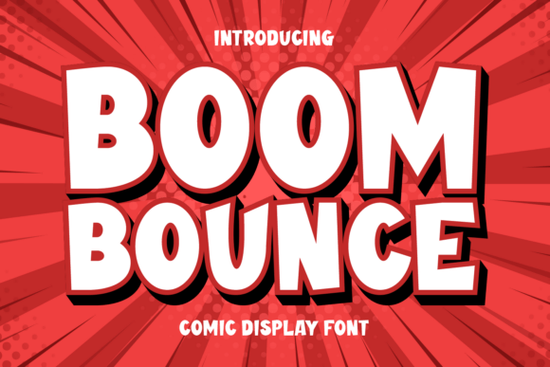
If you are searching for a typeface that adds genuine personality to your prints, Boom Bounce Font offers a lively solution for modern creators. Whether you are designing custom T-shirts, preparing classroom materials, or updating brand identity, having a font that stands out without screaming for attention is crucial. This specific style blends a contemporary comic touch with nostalgic vibes, making it versatile enough for both professional branding and casual hobbies. It functions best when you want to convey excitement, fun, or approachability.
Why Choose This Style for Your Creative Projects?
The primary reason designers turn to this collection is its unique balance between boldness and readability. Many display fonts sacrifice clarity for style, but this set maintains a smooth reading experience thanks to its natural cursive elements. It captures the energy of beloved comic heroes while incorporating playful accents that remind users of vintage wallpaper designs. This duality allows it to work well on packaging or large billboards, yet remain intimate enough for greeting cards and seasonal creations.
For those building a brand identity, the versatility is key. A font like this bridges authenticity and trendiness, ensuring your message connects with a global audience through multilingual support. While some designers prefer strict geometric shapes, this option leans into character. If you enjoy fonts that tell a story visually, you might also appreciate exploring other distinctive styles available for specific niches, such as options like Tattlova which offer similar quirky flair. Both choices help break the monotony of standard sans-serifs used everywhere else.
Ideas for Print on Demand and Apparel
Sellers in the print-on-demand market often struggle to find graphics that convert clicks into sales without looking cheap. Bold lettering is effective here because it grabs attention instantly. However, combining strong typography with cute characteristics prevents the design from feeling too aggressive. When applied to apparel, these letters hold potential to transform simple garments into visual art. The font handles spacing well, meaning it won't distort easily when curved around necklines or sleeves.
This makes it an ideal companion for sublimation designs where vibrancy matters. Unlike thin scripts that lose definition after heat pressing, these heavy strokes retain their shape. Many crafters find that pairing this with solid backgrounds maximizes contrast. For instance, white ink on black cotton looks sharp with these thick forms. If you specialize in children’s clothing, you may find complementary aesthetics in collections dedicated to younger demographics, similar to fun designs found in baby boy font categories.
Tips for Seasonal Marketing
- Holiday Cards: Use the rounded edges to soften festive messages without losing impact.
- Social Media Posts: Its simplicity makes it perfect for Instagram captions that need to pop against images.
- Educational Materials: Teachers can use it for worksheets that encourage engagement rather than boredom.
Working with Space and Layout
Sometimes your design canvas is tight. When working with limited square footage, such as a business card or a logo icon, wide fonts can crowd the composition. In those scenarios, you might look for narrower alternatives. However, for magazine-style flair, the width of this typeface commands respect. It is robust enough to handle headers that span across a poster page. For situations where you need to fit more text without losing visual weight, exploring specialized options is wise. A good comparison would be looking at how condensed styles manage space differently when compared to broad display faces.
Another aspect to consider is the flow. The cursive nature means it connects well with handwritten notes or doodle-style illustrations. This creates a cohesive look that feels hand-crafted rather than machine-made. Users report high satisfaction when mixing it with matching sticker sets or digital clips. It avoids looking sterile, which is common with vector graphics used in commercial products.
Comparing Vibe for Different Audiences
Different fonts evoke different feelings, and selecting the right one depends entirely on your target customer. If your project focuses on summer activities or camping gear, the adventurous spirit matches well with other thematic types. Some creators suggest swapping to something outdoorsy for specific campaigns. For example, switching to a theme like Frog Font displays can align better with nature-focused branding while keeping the same level of playfulness.